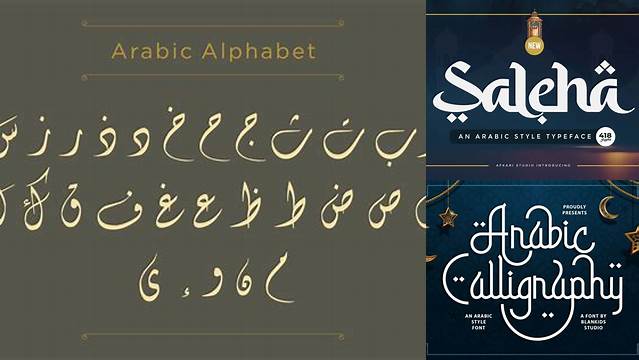
Arabic Font Style Name Generator Free Guide
Looking for the perfect Arabic font style name? You've come to the right place! This guide dives deep into the world of Arabic typography and provides you with a free Arabic font style name generator, tips, and inspiration to create amazing titles. Whether you're a designer, a writer, or just someone who appreciates the beauty of Arabic script, this is your one-stop resource. So, grab a cup of coffee, and let's get started, guys!
Arabic Font Style Name: Unveiling the Beauty of Arabic Calligraphy
Arabic calligraphy is more than just writing; it's an art form, a visual representation of language that carries centuries of history and cultural significance. The beauty of Arabic font style names lies in their intricate designs, flowing curves, and the graceful way they connect, creating a unique visual rhythm. Understanding the nuances of Arabic calligraphy is crucial when looking for names, as each style evokes different emotions and aesthetics. You have various styles, from the elegant Diwani to the bold Kufi, and many other styles to choose from. The selection of an Arabic font name impacts the tone and message of your work. It can communicate tradition, modernity, or anything in between. Finding the right font name enhances your designs and captures the spirit of the project. Choosing an Arabic font name is not just a stylistic choice; it's an act of cultural appreciation and a way to connect with a rich artistic heritage. When you select a beautiful font style name, it shows respect for the language and the art of calligraphy. The choices are nearly infinite when creating an Arabic font style name!
The careful crafting of an Arabic font style name should align with its purpose. Is it for a logo, a book title, or a website header? For example, a logo might benefit from a modern, streamlined style, whereas a traditional religious text might call for a more classic, ornate font. You have to think about the readability, of course. While some fonts are stunning to look at, they are difficult to read. You have to make sure the audience can clearly understand the name. Your target audience also influences your decision. Are you aiming for a young, contemporary audience, or an older, more traditional group? The font choice should reflect their preferences and tastes. The color and the background can significantly impact your Arabic font style name's appearance. Dark fonts on light backgrounds often provide the best readability, while contrasting colors can create a visually striking effect. So, when looking for Arabic font style names, remember that it's a journey of discovery, a chance to celebrate a beautiful art form. It's about finding the perfect balance between aesthetics, functionality, and cultural respect. Are you ready to get started?
The Significance of Arabic Calligraphy
Arabic calligraphy, far beyond mere writing, is a prestigious art form deeply woven into the fabric of Islamic and Arabic culture. Its beauty and sophistication are so significant that it is often regarded as the preeminent Islamic art form. The historical roots of Arabic calligraphy go back to the early centuries of Islam, with the script's development closely intertwined with the spread of the Quran. The creation of written copies of the Quran gave rise to the evolution of diverse calligraphic styles, each conveying a unique aesthetic sensibility. These styles were not merely functional but rather, were infused with spiritual significance. They transformed the act of writing into a form of artistic expression that revered the word of God.
Calligraphers, or “khattats,” occupied a position of high esteem in society, akin to the status of artists today. Their mastery over the pen and ink was a skill that demanded years of dedicated practice, which is why it was so revered! The intricate designs and careful execution reflect the artists’ devotion and discipline, which is why it makes it such an esteemed art form. Calligraphy’s influence extended to various aspects of life, from monumental architecture and coins to everyday objects. It wasn't restricted to religious texts, but it also adorned poetry, scientific treatises, and administrative documents. Therefore, it became a vehicle for cultural expression and the transmission of knowledge across generations.
Arabic calligraphy evolved into many distinct styles over centuries, each with its own characteristic features and symbolic meanings. The Kufic style, for instance, is known for its angular and geometric forms and was one of the earliest scripts used in the Quran. Conversely, the Thuluth script, renowned for its elegant curves and flowing lines, developed later. It became the script of choice for monumental inscriptions and the decoration of religious texts. Different calligraphic styles were also associated with different regions and historical periods, allowing scholars to trace the evolution of the script. Studying and appreciating Arabic calligraphy allows us to understand its profound impact on the visual culture of the Arab world. It offers insights into the history, beliefs, and artistic sensibilities of a vibrant civilization.
Arabic Font Style Generator: How to Find the Right Name
An Arabic font style generator can be a great tool to explore your options and find the perfect name for your Arabic font. This technology uses algorithms and databases to create various suggestions based on the parameters you input. Let’s be real; using an Arabic font style name generator can save you time and offer unique ideas that you may not have considered otherwise. These generators are typically user-friendly. You will be prompted to enter keywords, style preferences, and other relevant details to generate a list of potential names. Some generators also have advanced features, such as the ability to specify the font’s purpose (e.g., logo, website, book title) and the target audience. This allows the generator to tailor its suggestions to your project.
The advantage of using an Arabic font style name generator is its ability to rapidly produce a range of options. They can provide fresh ideas and help you avoid common naming pitfalls. Using these generators can provide a unique approach to the name-finding process. They can help you overcome creative blocks, inspiring you to think outside the box. Also, some generators incorporate language translation and cultural insights, ensuring the names are authentic and meaningful. This will help avoid any unintentional cultural appropriation or misinterpretation.
However, there are limitations. The quality of the suggestions can vary, depending on the generator. Some names may be generic or lack the desired creativity. That’s why you have to do your research! Not all generators are created equal, so choose one that is trustworthy and has good reviews. Also, you have to use the generator as a starting point. You should not solely rely on it! It's important to critically evaluate the suggestions, check for trademark issues, and ensure the names align with your overall branding strategy. After generating the name, you must check if the name is available!
Step-by-Step Guide to Using an Arabic Font Style Name Generator
Using an Arabic font style name generator can streamline the process of finding the perfect name. However, it's crucial to approach this step with an organized plan. The first step involves setting clear objectives. Ask yourself, “What do I want to achieve with this font style?” Are you targeting a specific industry, region, or audience? Defining your goals will focus your search and allow the generator to provide relevant suggestions. The next step is inputting your desired details. You should carefully choose your keywords, style preferences, and other parameters that align with your brand identity. This may include the tone (modern, traditional, elegant), the visual characteristics (bold, flowing, geometric), and the specific cultural references you wish to incorporate. You will probably need to adjust your parameters multiple times.
Once you submit your input, the generator will produce a list of name suggestions. You should evaluate each name against your criteria. Does it reflect your vision? Is it memorable, easy to pronounce, and distinctive? It is always important to refine your list. Eliminate the names that don't fit and keep the ones that resonate. You can also edit the names for a better fit. The final step is validating your chosen name. Conduct a trademark search to ensure the name isn’t already in use and available for your brand. You can also do this by asking people for their thoughts on the name. Getting feedback from potential customers or colleagues can provide you with the final assurance that the name is right for your brand. By following these steps, you can turn your Arabic font style generator into a powerful tool for finding the perfect name.
The Best Arabic Font Style Names and Their Characteristics
The world of Arabic font style names is diverse and rich, with each style possessing unique characteristics. Knowing these distinctions can help you choose the best font to suit your needs. Let's explore some of the most popular styles and what makes them stand out. Kufic, one of the oldest and most iconic scripts, is characterized by its angular and geometric forms. This font style conveys a sense of formality, authority, and strength. It's often seen in religious texts, historical inscriptions, and logos that need a classic, timeless feel.
Naskh, another fundamental style, is known for its clarity and readability. Its cursive, flowing lines make it a favorite for everyday writing. It is widely used in books, newspapers, and websites, making it a perfect choice for long-form content. Thuluth is a more ornate and elegant style, distinguished by its curved strokes and decorative elements. Often used in decorative inscriptions, it adds a touch of sophistication and artistry to any design. Diwani, known for its complex curves and intricate details, is one of the most beautiful and challenging styles to master. Its use is usually reserved for formal documents, certificates, and elegant branding projects.
Ruq'ah is a more casual and fast-paced style. It is characterized by its simplicity and speed of execution. It is popular for handwritten notes and informal communication. Finally, Farsi is a contemporary script. It is a simplified version of Naskh. It is used for its modern aesthetic and is often used in contemporary design and branding. Each of these styles represents a unique aesthetic. Choosing the right font name requires a deep appreciation of their individual characteristics and how they align with your project's goals and audience. The perfect name is the one that brings your vision to life and resonates with your audience.
Exploring Popular Arabic Font Styles
Dive deeper into some of the most recognized Arabic font styles and their characteristics. It's all about details! Firstly, Kufic, the earliest developed script, is an essential style in Arabic calligraphy. Its defining features are its rigid, angular lines. The Kufic style is the epitome of formality, often used in religious texts, inscriptions, and architectural designs. The Kufic style symbolizes stability, strength, and historical significance. The next one is Naskh, another major style, widely praised for its clarity and simplicity. This script has curved lines and is easy to read, which makes it the go-to style for books, newspapers, and general writing. Naskh reflects accessibility and everyday communication.
Thuluth is a gorgeous style, known for its elegance and decorative flair. You can identify this style through its flowing curves and detailed ornamentation. Thuluth is frequently used in titles, religious texts, and decorative inscriptions, providing a touch of sophistication and artistry. Diwani is an elegant style characterized by complex curves and graceful lines. It’s a more difficult style, and is often used for formal documents, certificates, and upscale branding. Diwani represents prestige and sophistication. Ruq'ah is a more casual and flowing script. It is known for its simplicity and ease of execution, often used for handwritten notes and informal communications. It’s a perfect style for quick writing.
Finally, Farsi is a more modern script. It is a simplified version of Naskh, often used in contemporary design for its clean and modern look. Each of these styles demonstrates the diversity of Arabic calligraphy. Understanding these styles will help you make the best choices for your project. The goal is to align the style with the message and intended audience.
Free Arabic Font Style Name Generator: Where to Find Them
Want to know where to find a free Arabic font style name generator? Several online tools can help you in your search. These generators offer diverse features to help you create custom Arabic font style names. Here are a few resources to get you started. Many websites offer free generators, allowing you to input keywords and style preferences and instantly receive suggestions. They often use algorithms to combine your inputs and create unique names that reflect your brand or project. These free generators can be a great starting point for brainstorming.
Another option is to explore online forums and communities dedicated to Arabic calligraphy and design. The members often share their own tips and recommendations for finding the perfect font name. These communities can provide valuable insights and inspiration. You can also find open-source font creation tools, like those available on GitHub, that offer basic naming suggestions. These tools may not be as sophisticated as dedicated generators, but they can provide a valuable starting point, especially if you are on a budget.
Also, there are free design resources such as font libraries and databases. These include sites like Google Fonts and Font Squirrel, which often include naming tips. They can help you understand the font names and their characteristics. While these resources are free, it's always a good idea to verify the names for trademark issues and availability before using them commercially. You should also consider your branding needs. Free resources can be perfect for personal projects, but professional endeavors might benefit from more specialized tools. Using a free Arabic font style name generator can significantly streamline your process.
Top Free Arabic Font Style Name Generators
When looking for a free Arabic font style name generator, you have to know which ones are the best! There are several great options available. One popular option is the online tools that offer quick and simple suggestions. These platforms enable you to input keywords and style preferences and, in return, you get an immediate list of Arabic font style names. The simplicity of these tools makes them ideal for quick brainstorming and exploring different possibilities. Another option includes design community forums, such as Behance or Dribbble. These communities host discussions and provide valuable insights from experienced designers.
Furthermore, some open-source font creation tools also incorporate name generators, offering basic naming suggestions as part of their broader functionality. Although the capabilities of these generators may be limited, they provide a practical starting point. These tools are especially helpful for personal projects or budget-conscious designers. There are also font libraries, like Google Fonts or Font Squirrel. While they don’t have dedicated name generators, they often include font naming conventions and usage tips. They can help you understand the characteristics of various font names. Before you use them, it's important to note that free generators may have some limitations. The quality of the suggestions can vary, and you will need to conduct due diligence regarding trademark rights and availability. Utilizing multiple free generators can increase the diversity of name options. By using these resources, you can discover new font names and make informed decisions.
Tips for Creating the Perfect Arabic Font Style Name
Creating the perfect Arabic font style name requires more than just inspiration; it requires a blend of creativity, cultural understanding, and technical know-how. Here are some tips to help you create a name that stands out. You need to start with a deep understanding of the Arabic language and calligraphy. Research different styles, their historical significance, and the emotions they evoke. Knowing the different nuances of Arabic script can help you create a more authentic and meaningful name.
Next, you must brainstorm. Generate a list of keywords related to your font’s style, purpose, and target audience. Use an Arabic font style name generator to expand your options. Don't be afraid to experiment with different combinations of words and phrases to find something unique. You also have to consider your target audience. Think about who will be using your font and what they're looking for in terms of aesthetics and functionality. Tailor your name to appeal to their preferences and needs.
Finally, you have to check the availability and trademark of the name. Ensure the name isn't already in use or trademarked. This will save you the hassle of potential legal issues down the road. Creating the perfect Arabic font style name also involves refining your choices. After generating a list, narrow down the options. Select names that are easy to pronounce, memorable, and visually appealing. Get feedback from colleagues, friends, or potential users to gauge their reaction to the name. Remember that the perfect Arabic font style name is a reflection of your brand's identity. Make sure the name aligns with your project’s overall vision, and it effectively communicates your message to your audience.
Combining Creativity and Technical Knowledge
When creating the perfect Arabic font style name, you need to blend creativity with technical knowledge. You need to understand the art and history of Arabic calligraphy. You have to know how to find the right name. First, you must delve into the intricacies of the Arabic language and script. Take the time to study the diverse range of calligraphic styles, including the Kufic, Naskh, Thuluth, and Diwani scripts, among others. Try to understand their unique historical significance and cultural contexts. This understanding will empower you to develop names that resonate with cultural authenticity and depth.
Next, start brainstorming! Develop a list of keywords that represent the font's features, its visual style, and its intended use. Engage with Arabic font style name generators to uncover new creative possibilities. Combine these elements in innovative ways to formulate distinctive and catchy names. As you refine your list, you must assess the names for their memorability and visual appeal. The name should be easy to pronounce and visually appealing in both digital and print formats. Make sure that the name embodies the essence of your font style, its unique characteristics, and its overall aesthetic. Technical knowledge is also very important. You have to confirm that your name does not infringe on any trademark. By merging creativity with technical expertise, you can create a name that honors the art of Arabic calligraphy. The name should be both original and visually captivating.
Generating Unique Arabic Font Style Names: Inspiration and Ideas
Need inspiration for generating unique Arabic font style names? Let's dive into some cool ideas and concepts to help you create something truly special! Drawing inspiration from historical calligraphic styles can be a great starting point. You can combine traditional styles with modern twists to create unique font names. For example, you could name your font “Kufi Moderne” or “Naskh Fusion.” Also, the use of descriptive words can make your font names stand out. Words like “Elegant,” “Bold,” “Flowing,” and “Geometric” can be used in conjunction with Arabic script names. You can create a name like “Elegant Naskh” or “Bold Thuluth.”
Also, themes inspired by culture can be used. If your font style evokes a sense of heritage, tradition, or spirituality, you can use words and phrases associated with these concepts. Examples include “Heritage Kufi,” “Divine Diwani,” or “Sacred Script.” Another option is to consider the purpose of your font. If your font is intended for a specific purpose, such as logos, headings, or body text, you can incorporate these ideas into your name. Examples include “Logo Kufi,” “Header Naskh,” or “Text Thuluth.” Also, play with wordplay and puns. Using puns, rhymes, or alliteration can make your font names memorable and fun. For example, you could use alliteration, like “Flowing Farsi” or rhymes, like “Kufi Sky.”
Finally, try to stay current with modern design trends. You can incorporate contemporary elements, such as minimalism or abstract shapes, to create names that reflect the current design landscape. Remember that generating unique Arabic font style names is a creative process. Experiment with different ideas, combine concepts, and don't be afraid to think outside the box. The goal is to find a name that captures the essence of your font style. It should also resonate with your target audience.
Exploring Creative Approaches
When generating unique Arabic font style names, it’s important to explore creative approaches to find a name that truly stands out. Start by researching the history and evolution of Arabic calligraphy styles. Draw inspiration from the past. Consider using a mix of traditional Arabic script names with modern influences. For instance, you could use “Kufi Modern” to show that it is modern but has some history. Look for creative ideas! Use descriptive adjectives that highlight your font’s key characteristics. Include descriptive adjectives such as “Elegant,” “Dynamic,” “Flowing,” or “Geometric.” This will help you connect to your audience. Another option is to find inspiration from various cultures.
Think about the cultural context or the themes you want to convey with your font. Use words related to heritage, traditions, or spirituality. You might try “Heritage Diwani” or “Sacred Naskh.” Then, you can focus on the specific purpose of your font. If your font is for a specific design purpose, like logos, titles, or body text, you should consider this in your naming process. For example, a title might be known as “Logo Kufi” or “Header Thuluth.” Also, consider experimenting with wordplay techniques, such as alliteration, rhyming, and puns. These fun techniques can make your font names more attractive. Alliteration, such as “Flowing Farsi,” or rhyme schemes, such as “Kufi Sky,” are fun ideas.
Finally, you have to check that your name reflects current design trends. You should also incorporate contemporary elements, such as minimalism or abstract shapes, in your naming process. You have to be creative! Experiment with various ideas, mix concepts, and go beyond traditional thinking. The objective is to create a name that accurately represents your font’s identity and attracts your target audience.
Tips for Choosing and Evaluating an Arabic Font Style Name
Once you have a list of potential names, how do you choose and evaluate the best one? Choosing and evaluating an Arabic font style name involves a strategic process that combines aesthetics, practicality, and cultural understanding. First, assess the visual appeal and readability of your name. Make sure the name is visually attractive and easy to read in different sizes and applications. The best font name will reflect your project.
Then, you have to consider its memorability and pronunciation. You want a name that is easy to remember and pronounce. This will increase its recall and recognizability among your target audience. You should also review cultural appropriateness. You have to ensure the name aligns with the cultural context and doesn't unintentionally offend anyone. Choose a name that has a positive association and resonates with your audience. Also, you need to check for availability and trademark issues. You have to ensure that the name is available for use and doesn't infringe on any existing trademarks. Check online databases and registries to perform a thorough search.
Also, test your name with your target audience. Get feedback from potential users to understand how they perceive the name. This will help you find out if the name resonates with your audience and communicates your intended message. Finally, trust your instincts and make an informed decision. The perfect font name is a balance of creativity, functionality, and cultural sensitivity. It should reflect your brand's identity and resonate with your target audience. It's also about finding a name that accurately represents your font style. It’s about finding a name that is memorable, easy to pronounce, and culturally appropriate. Remember, choosing and evaluating an Arabic font style name is a key step in the font development process. Taking the time to make the best choice will help you make a successful font.
Key Considerations in the Selection Process
Several key elements have to be considered when selecting an Arabic font style name. You need to ensure that the name is easy to pronounce and memorable. You should select names that are easy to pronounce. You can also pick a name that will stick in the minds of your target audience. The name must be memorable and also easy to understand. In addition, the font style name must visually stand out.
You also have to consider the visual appeal and readability of the font style name. The font name should be able to be read in different sizes and contexts. The name should reflect the aesthetic of the font. If the name is visually appropriate, it will communicate your style. You also have to consider if the name is culturally appropriate. You have to ensure the name does not offend any culture. The name should be in line with the cultural context, so it appeals to the correct audience. Also, the name should be available and have no trademark issues. It’s very important to make sure the name is not already trademarked.
Conduct a trademark search to protect your font. Another key factor to consider is how the audience perceives the name. Testing your font name with your audience will help you understand what people think. Testing helps you understand if the name connects with your target audience. Using this information, you can decide which name is the best for your brand. To summarize, the key considerations include ease of pronunciation, memorability, visual appeal, cultural appropriateness, trademark availability, and the feedback of your target audience. You can select a name that helps your font flourish by giving these components careful consideration.
Arabic Font Style Name Generator: Benefits and Drawbacks
Using an Arabic font style name generator offers a range of benefits while also having certain drawbacks. Understanding both sides of the coin will help you make informed decisions. A major benefit is the time saved. These generators quickly provide a large variety of options, which is faster than brainstorming alone. It will save you hours of work.
Another benefit is the creative inspiration these generators provide. They can spark new ideas that you may have not considered before. These generators can also help you generate unique and creative names. Another benefit is that the generator often offers easy-to-use interface. Another benefit is the access to a variety of font styles. They help you explore new and different names.
However, there are also drawbacks. One limitation is the lack of originality. While the generators can provide many options, the suggestions may not be entirely unique. The suggestions may be common or generic. Also, the accuracy and relevance of the name can be a concern. The results may sometimes not be as accurate as you want them to be. Also, the quality of some generators can be poor. Not all generators are the same, and their quality can vary. Some generators will require additional review. Another drawback is that the generator does not offer cultural expertise. Also, they may not always ensure the names are culturally appropriate. They can only go so far with their results. Also, there can be trademark issues. This tool does not always check if a name is already trademarked. That's why it is important to verify. By knowing both the advantages and disadvantages, you can use these generators to enhance your work. By using the tools wisely, you can create amazing font names.
Evaluating the Pros and Cons
When deciding whether to use an Arabic font style name generator, it’s important to weigh the pros and cons. When using a generator, one of the main benefits is that it is time-saving. These tools quickly provide multiple options, which reduces the time you’ll spend on brainstorming and helps you explore various possibilities. Another advantage is the potential for creativity. The generators can trigger new ideas that you may not have thought of yourself.
The generator can also help you find a unique and distinct name. The ease of use and user-friendly interface is also a plus. Using the generators can simplify the name-generation process. The wide range of font styles is another advantage. The generators provide you with various Arabic font styles. However, there are some significant disadvantages to using generators. One major drawback is the lack of complete originality. The name suggestions may be generic and not entirely unique.
Also, there are issues related to the name’s accuracy and relevance. In some cases, the results might not fully match your specific needs. You need to consider the quality of the generator. Some name generators are not very good. You have to check this. Also, the generator doesn't offer cultural expertise. You have to ensure the name is appropriate. Finally, trademark issues are another potential concern. The generator doesn't always verify whether a name has already been trademarked. Knowing both the advantages and disadvantages, you can make an informed decision. You should also use it wisely to optimize your workflow and create an amazing font name.
Arabic Font Style Name: Legal and Trademark Considerations
Navigating the legal and trademark considerations is very important when you name your Arabic font style. You have to make sure you are not infringing on any existing intellectual property rights. Before you begin using your font name, you must conduct a trademark search. This involves checking the relevant trademark databases to ensure that your chosen name isn't already in use by another company. This process protects your brand and avoids potential legal issues. You can perform this search on your own by using online trademark databases or by consulting with a legal professional.
Even if your name is available for trademark registration, it doesn't guarantee you can use it without issues. There can be similar names or designs that could lead to confusion. Therefore, it is important to seek advice from an intellectual property lawyer to ensure that you are not at risk of infringing on others’ rights. You have to be aware of the potential for copyright infringement. Some Arabic font style names are considered creative works. That's why they are protected by copyright law. You need to respect the copyright of others by not copying or mimicking their work.
You must also follow the rules for using the font name. Ensure that you use the name consistently across all your branding materials. You should protect your brand identity and communicate a cohesive brand. Always check for the availability of the domain name and social media handles for your font name. This will help you secure your online presence and maintain consistency across all your platforms. By understanding and following the legal and trademark considerations, you can confidently use your Arabic font style name. Also, you should consult with an IP lawyer for advice.
Ensuring Legal Compliance
When dealing with Arabic font style names, it's crucial to ensure you comply with all legal requirements. Before using your font name, you have to conduct a complete trademark search. You can perform this search online to ensure the name is not in use. The trademark search protects your brand from any possible legal troubles. You should consider similar names or designs.
Even if the name is registered, it does not guarantee you can use it without any legal trouble. This is why you should get advice from an intellectual property lawyer to make sure you are not infringing any third-party rights. If the font name is considered creative work, you should respect copyright laws and protect your brand. This also applies to your design work. Also, you must make sure you use the name in all of your branding materials to present a consistent brand identity. You should verify the availability of the domain name and social media platforms. You have to secure your presence on the web.
By taking these steps, you can confidently use the Arabic font style name. You also need to consult with an IP lawyer. They can provide you with the best advice. By doing this, you can ensure your font name is legally sound and that it is fully protected. Always take time to consider the legal and trademark ramifications. It will help you maintain your brand. The use of the font is essential for the commercial success and longevity of your work.
The Future of Arabic Font Style Names: Trends and Innovations
The future of Arabic font style names is exciting! Several trends and innovations are shaping the way these names are created and used. One trend is the growing interest in incorporating technology into font creation and naming processes. AI and machine learning algorithms are used to generate a variety of font names. This will help designers to explore new styles. Another trend is the rise of modern and minimalist styles. There is more focus on clean and simple designs. Arabic font style names are influenced by this trend.
There is also an increasing emphasis on the cultural preservation. Traditional calligraphic styles are being revitalized. Also, modern designers are trying to integrate these styles into their work. There is also a rising demand for accessible and user-friendly fonts. Designers are creating fonts with different readability options. These fonts can be used across various devices. Another trend is the focus on branding and identity. The font style names are becoming more important for their brand building and recognition. They also want to convey their brand message.
There is also the rise of a global design landscape. Designers from different backgrounds are working together. This will create unique and diverse font styles. You must also consider the personalized design. You can use customized font style names, reflecting the unique brand identity. You can also expect more interactive and dynamic fonts in the future. The trends and innovations that are in place, will shape the future of Arabic font style names. The goal is to improve creativity, accessibility, and cultural relevance. If you want to be on top of these trends, you should always pay attention to the latest changes.
Emerging Trends in Arabic Typography
The world of Arabic typography is evolving. Several exciting trends are set to change the future of Arabic font style names. The trends are a mix of technological advancements, cultural insights, and evolving design. A rising trend is the use of AI and machine learning. AI helps designers in the font creation. AI helps them generate various font names. The modern and minimalist styles are also on the rise. More designers are using minimalist designs and clean fonts. Arabic fonts are also changing as designers create fonts.
Another trend is cultural preservation. More designers are focused on traditional calligraphic styles. Designers want to maintain and integrate the historical styles. The focus on accessibility and user-friendly fonts is also a rising trend. Designers are making fonts accessible across various devices. They try to focus on readability, too. Branding and identity are also playing a larger role. Arabic font style names are becoming more valuable. They are helping to build the brand and help in recognition. The expansion of the global design landscape is another growing trend. Designers from various cultural backgrounds are joining forces. This creates unique and diverse font styles.
The future of Arabic typography will see a rise in personalized design. With customization, businesses will use Arabic font styles. It will also reflect unique brand identities. The trends emphasize the importance of technology, cultural relevance, and user experience. They provide exciting opportunities. The designers are looking to create accessible, innovative, and culturally rich experiences. Keeping up with these trends is essential if you want to use the future of Arabic typography.